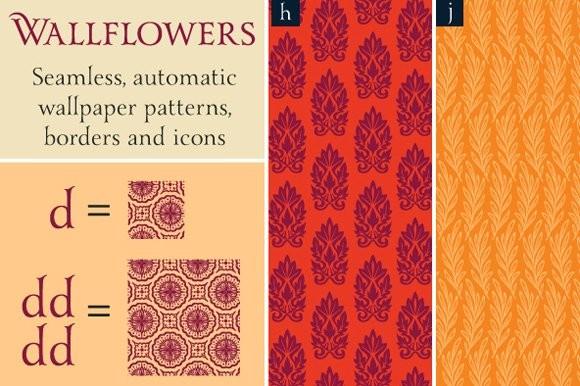
Wallflowers Font Description
For as long as I can remember, I have been fascinated with patterns. Growing up in a home built in the 1920s that had very interesting wallpaper throughout can have that effect. These icons and tiles are a result of several sketches accumulated in my many notebooks, finally redrawn and assembled into an easy to use font format.
Wallflowers features 26 unique hand drawn wallpaper tiles and their accompanying icons for standalone use. These dingbats can be used as icons, borders, and/or wallpaper patterns. Wallflowers are very easy to use, for borders or wallpaper, simply type the same letter consecutively (aaaa, bbbb, etc.) and voila! The pattern will emerge. Refer to the Users Guide in the Gallery and included with your download for further instruction and to view the patterns included.